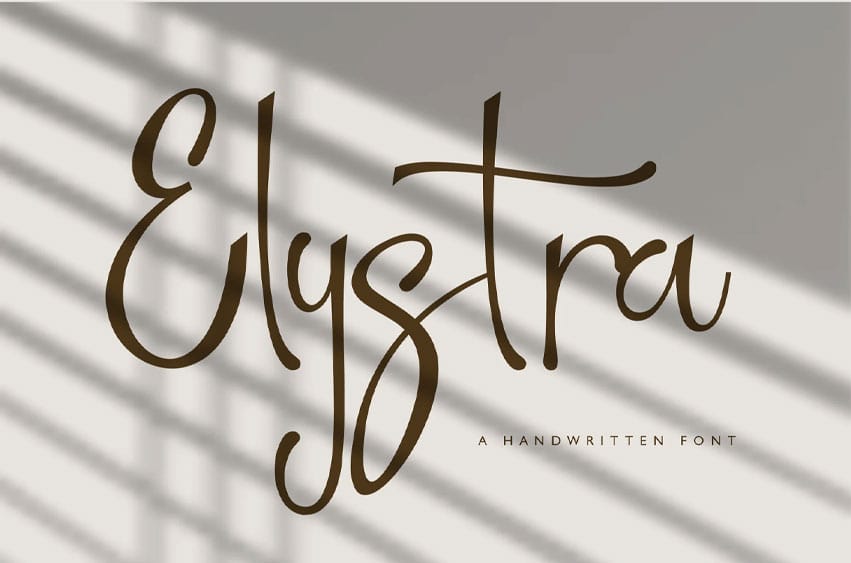
Elystra Font is a stunning handwritten script font that exudes charm and elegance in every curve.
Its graceful strokes and refined character shapes make it the perfect choice for projects that demand sophistication with a personal touch.